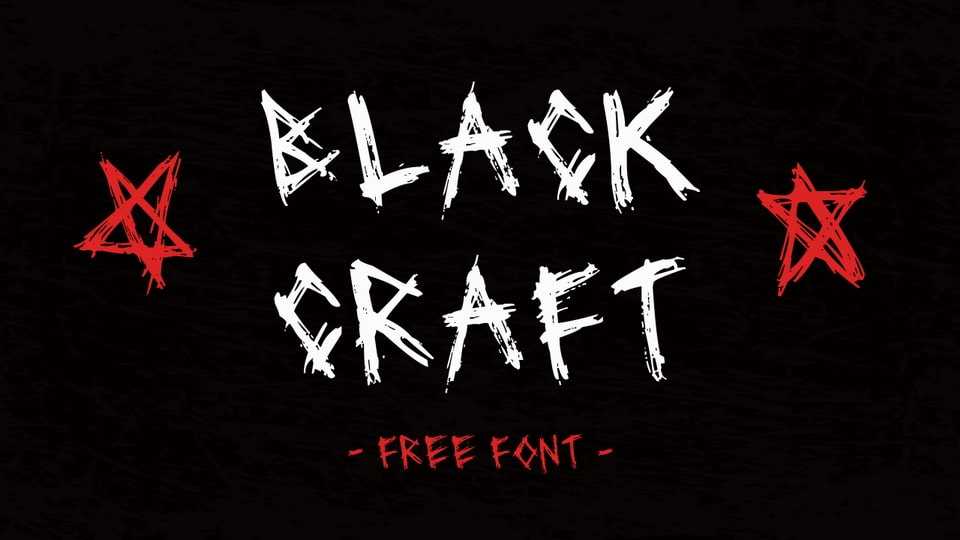
Download Blackcraft font, an eye-catching typeface painted with bold, fearless brushstrokes. Blackcraft font is perfect for designs that demand a powerful, artistic flair and an organic, hand-crafted touch.